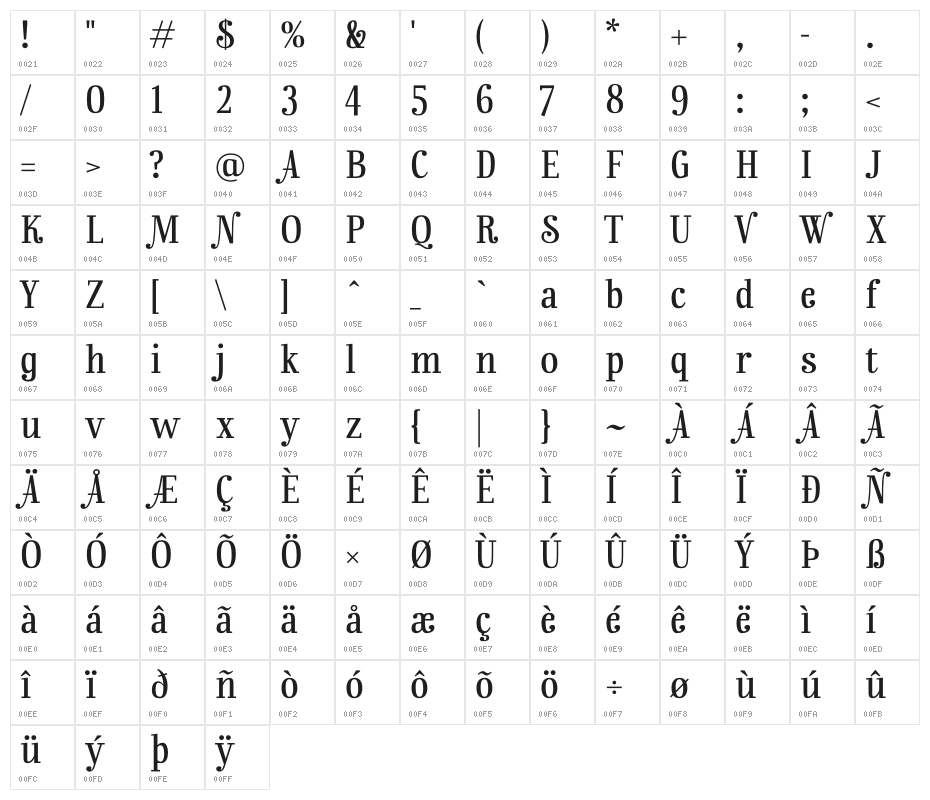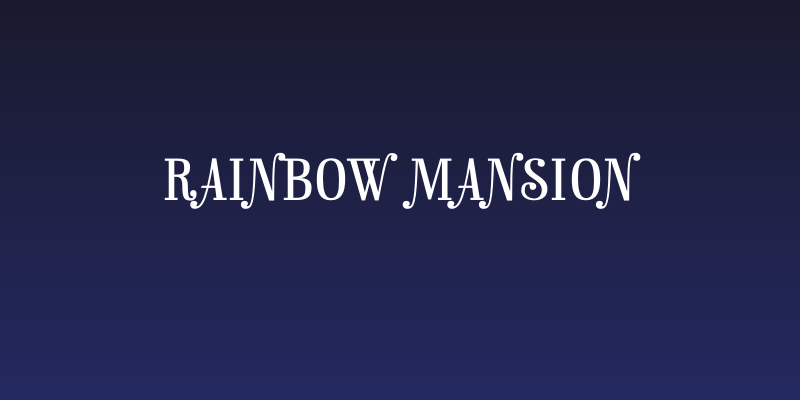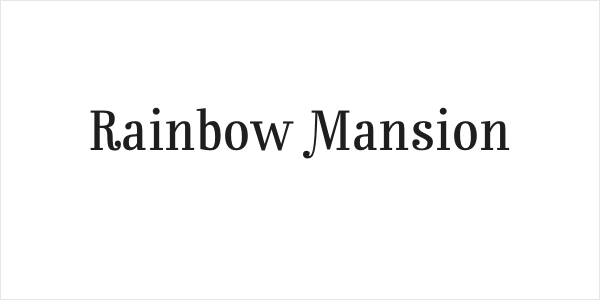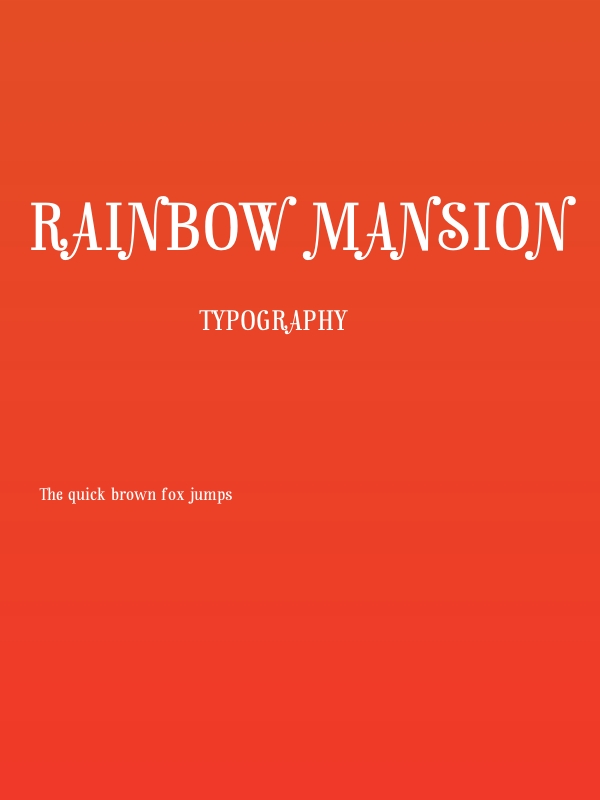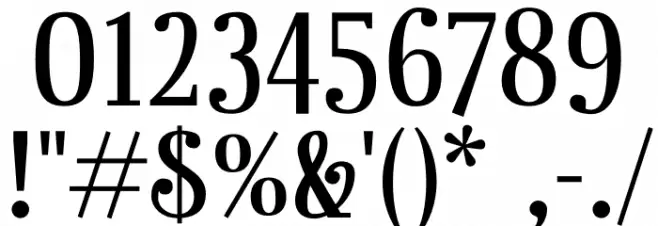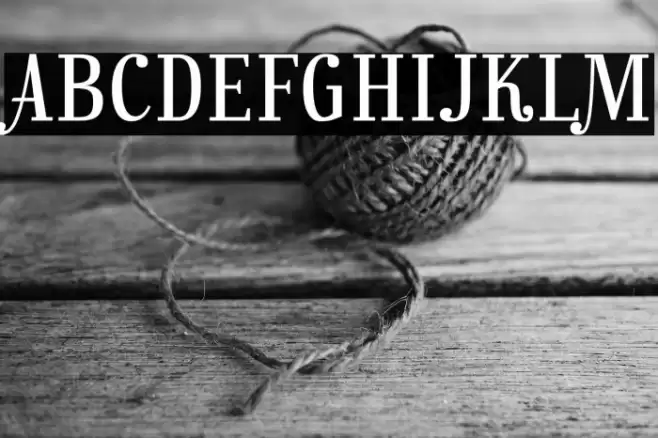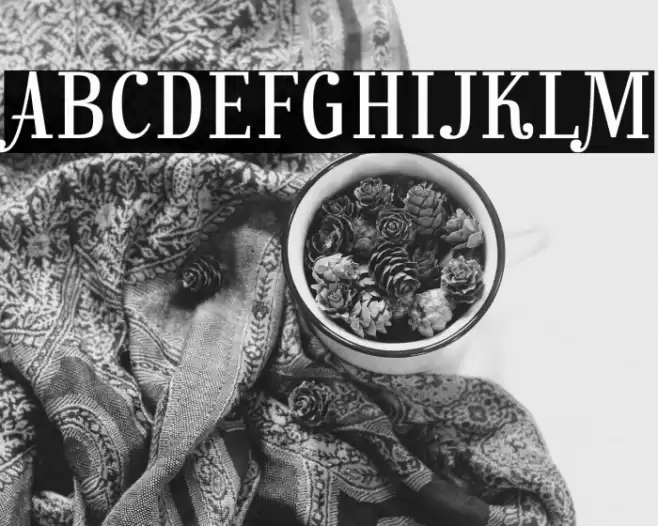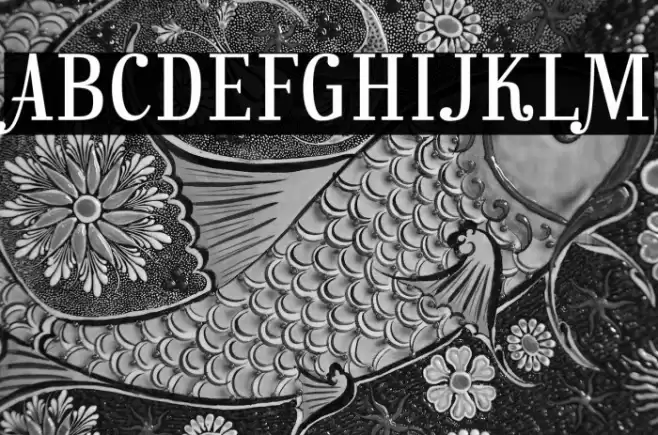
Rainbow Mansion Font
Rainbow Mansion Description
This font features a classic serif style with elegant, slightly curved serifs that add a touch of sophistication. The uppercase letters are bold and commanding, while the lowercase letters maintain a consistent and harmonious flow. The numerals are clear and well-defined, making them easily readable. Special characters are designed with the same attention to detail, ensuring a cohesive look across all glyphs. The overall design is balanced, with moderate contrast between thick and thin strokes, giving it a timeless appeal suitable for a variety of applications.
| Overall Style | Classic |
| Use Case | Headlines, Body text, Logos |
| Proposed Projects | This font is perfect for editorial design, book covers, formal invitations, and branding projects that require a touch of elegance and tradition. |